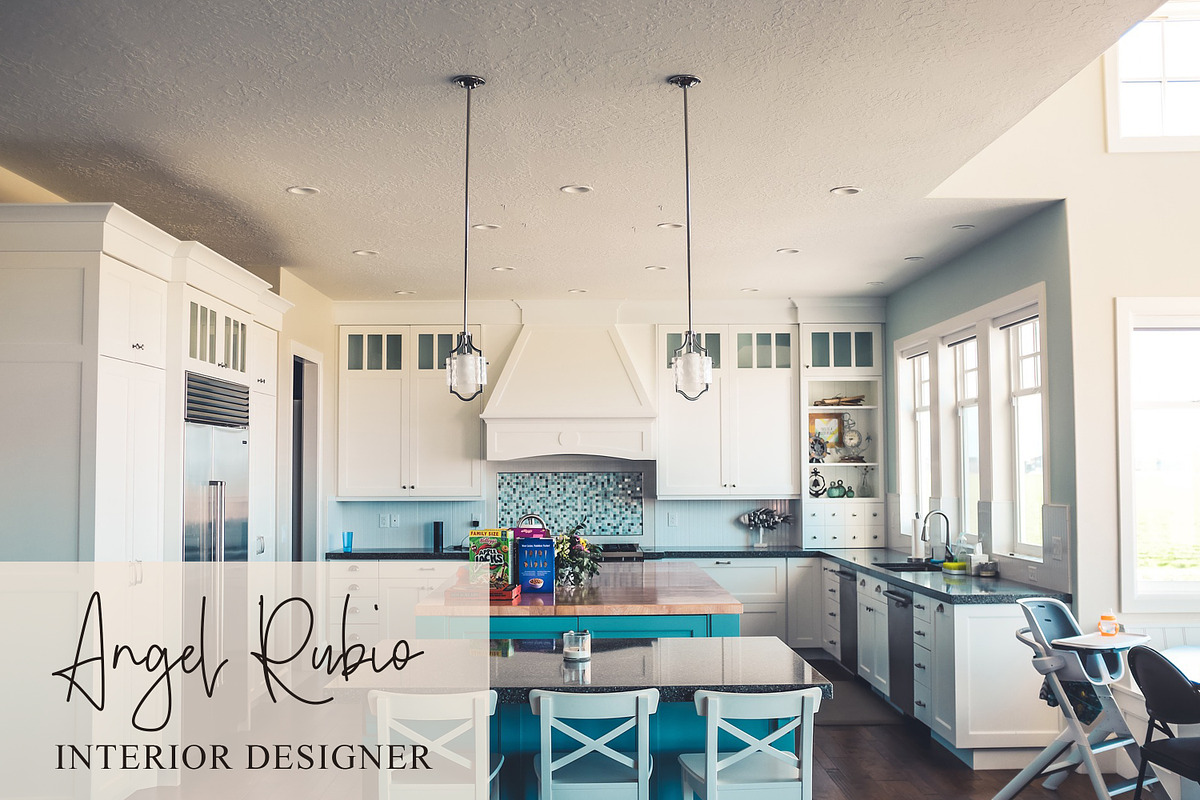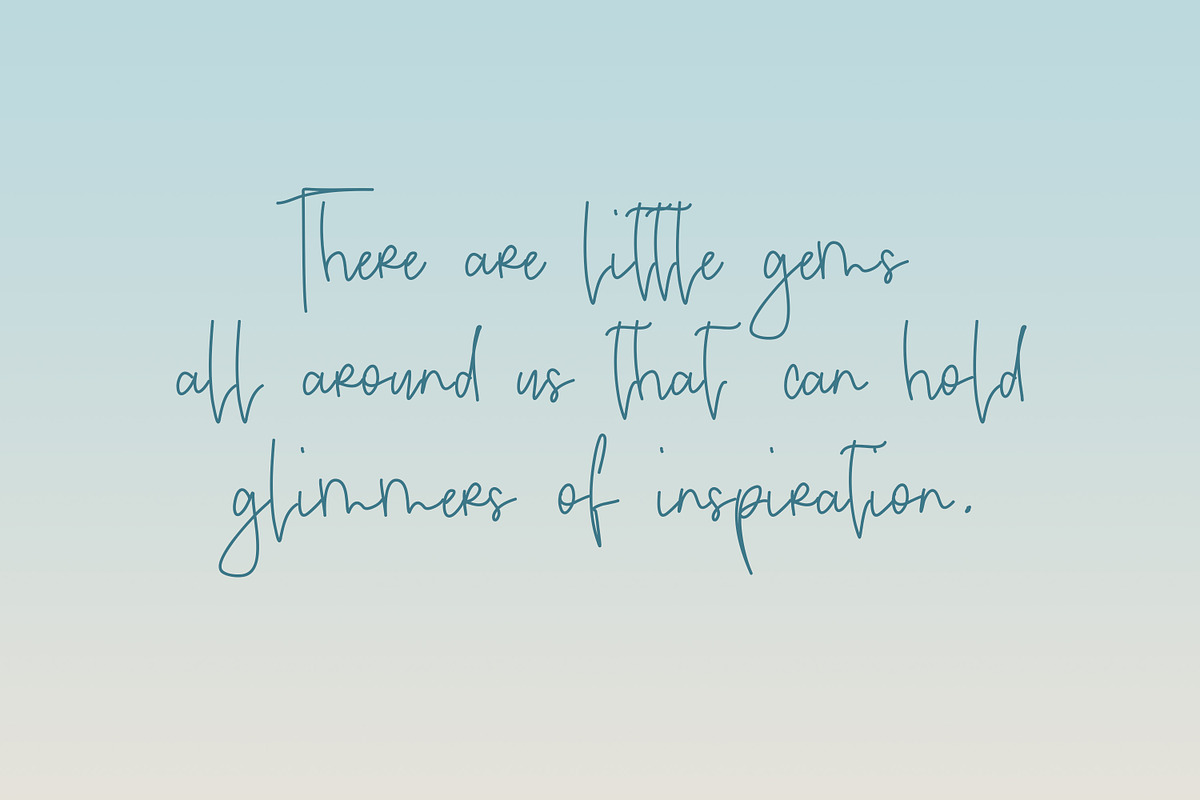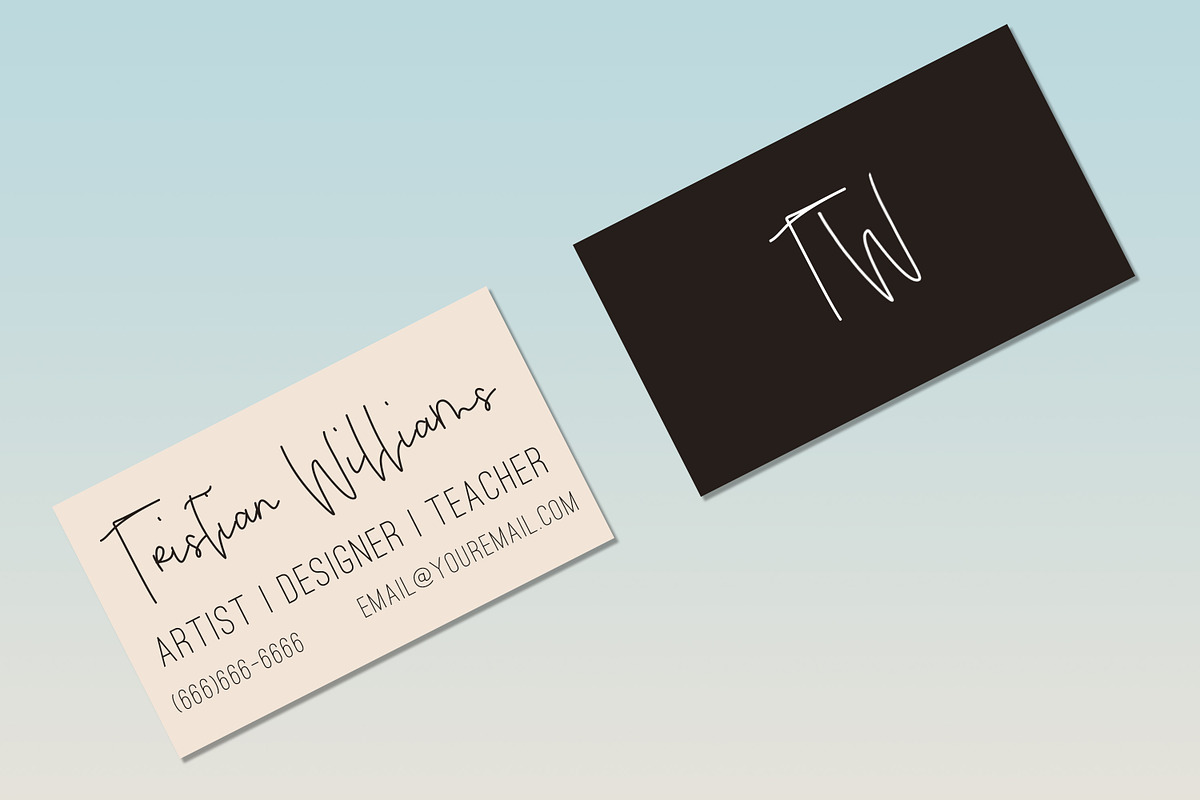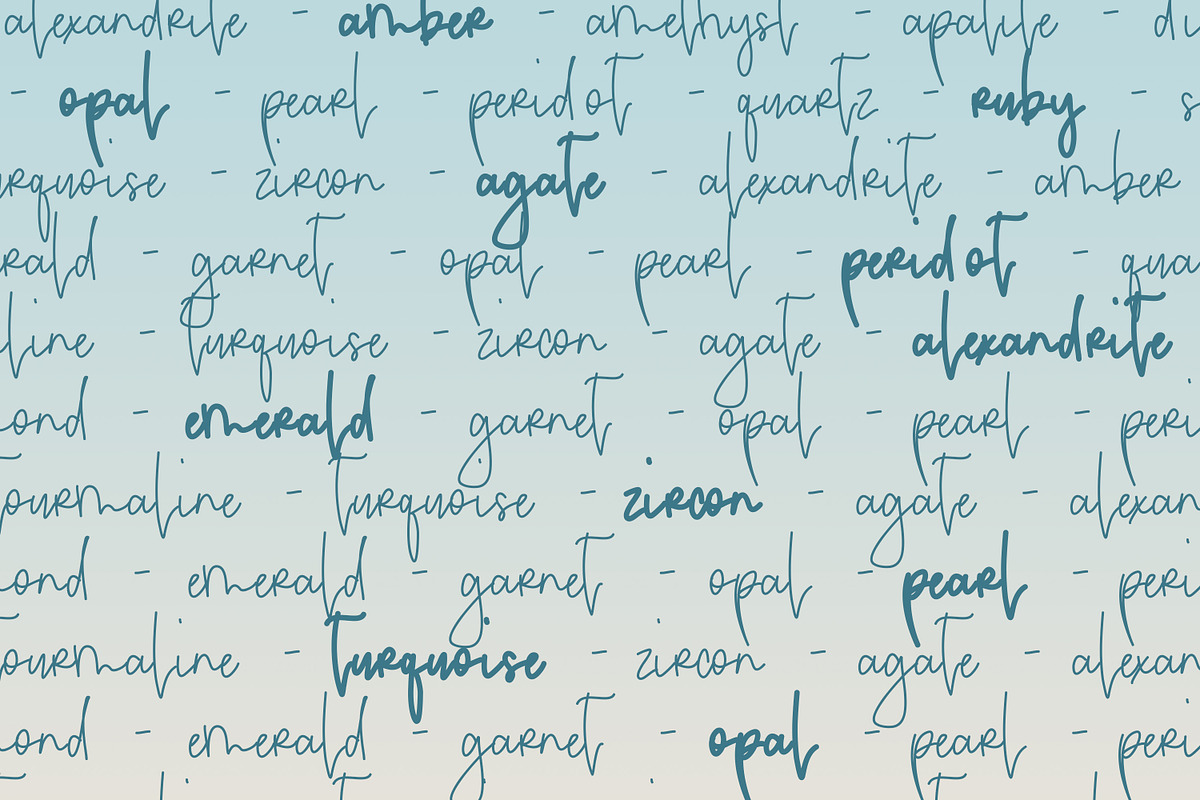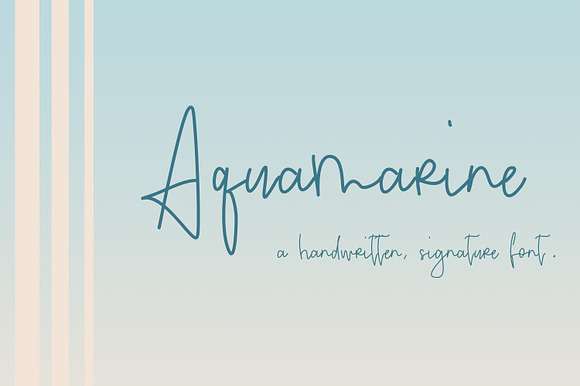
aquamarine // a handwritten font
Aquamarine is a delicate, handwritten font family in two weights: bold and regular. This font pairs lovely with a serif font for all your designing needs, including:
Why aquamarine // a handwritten font is worth a look
aquamarine // a handwritten font by Sunkissed Minimalist fits naturally into Branding, posters, packaging, typography.